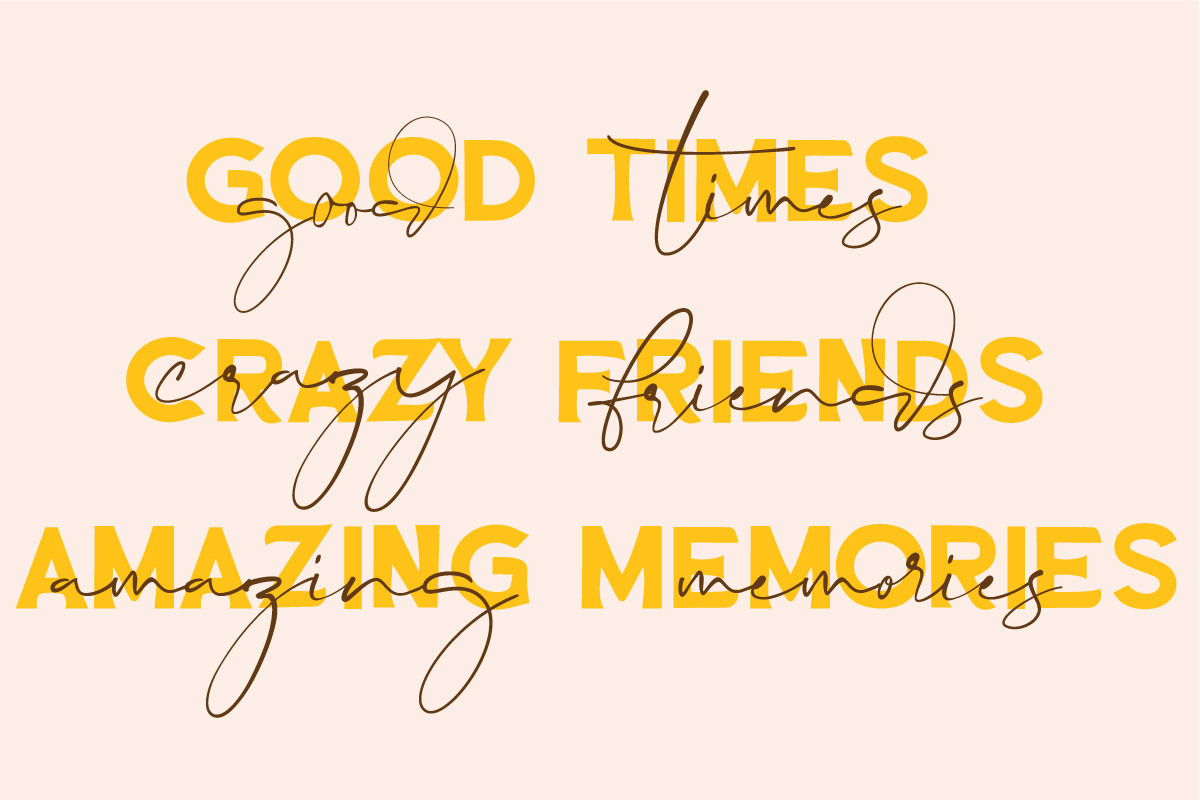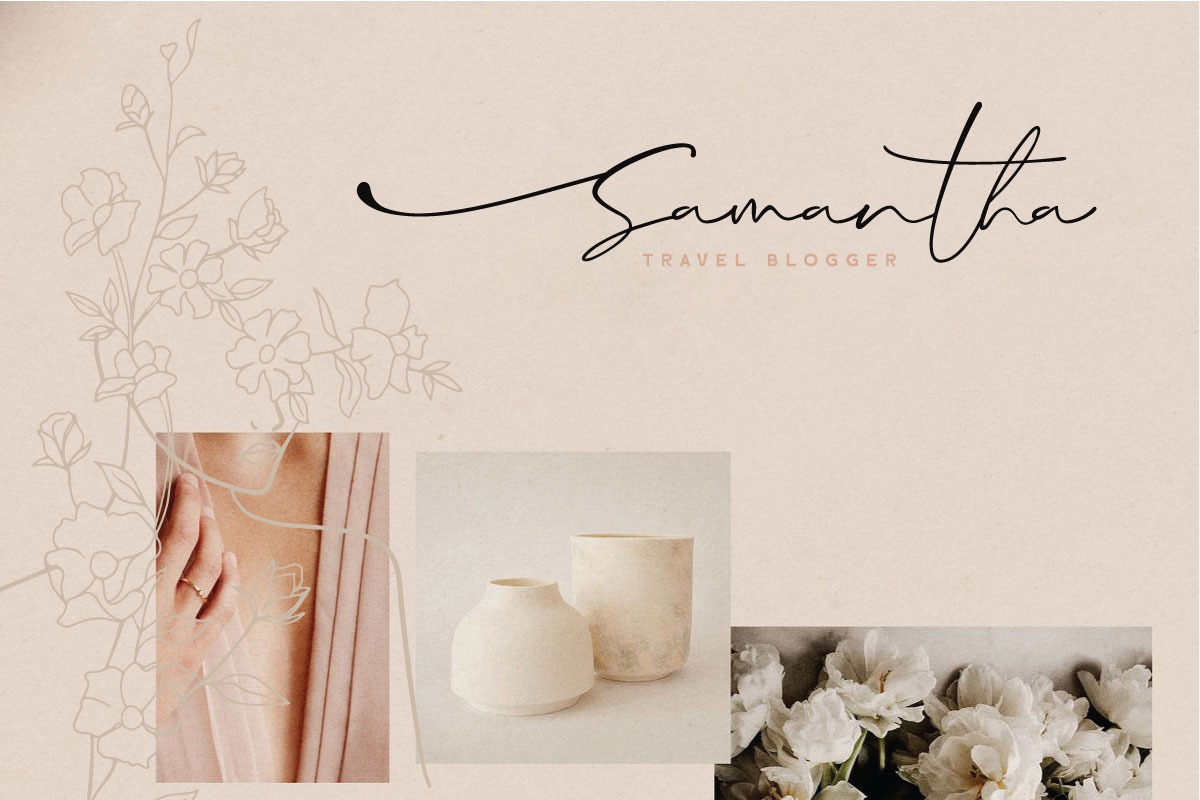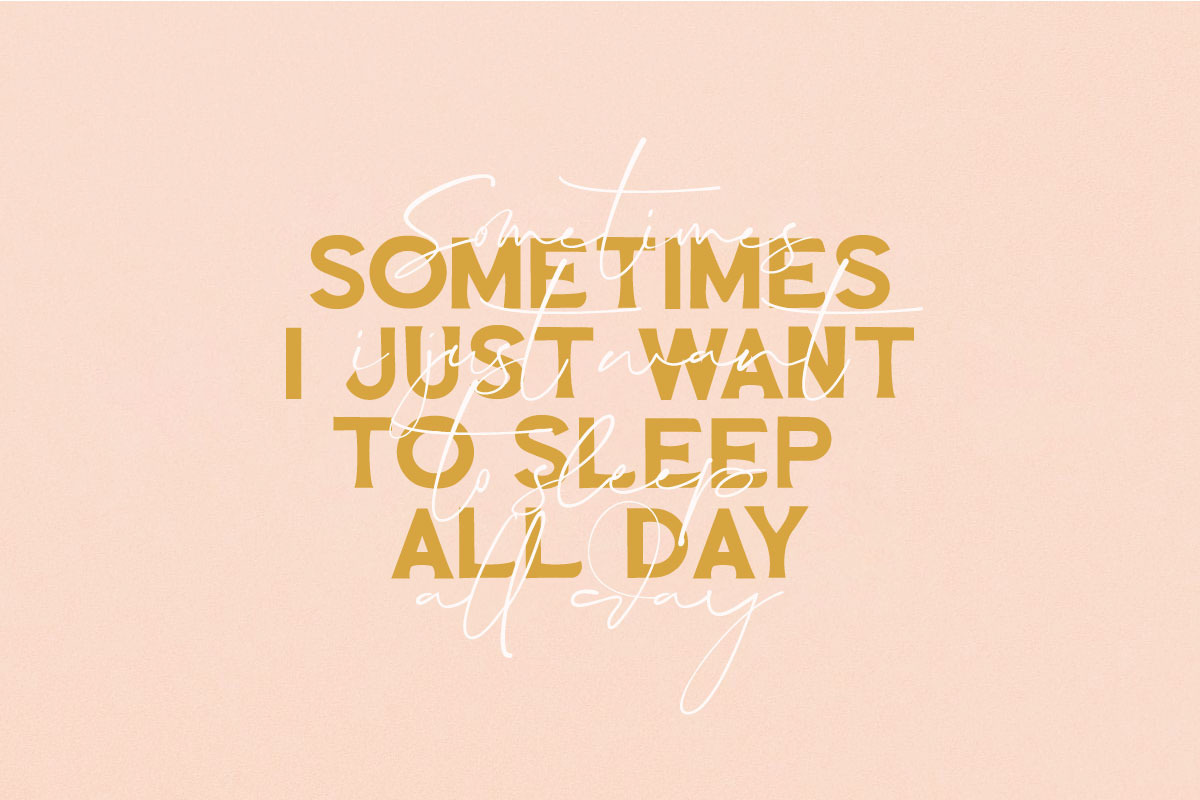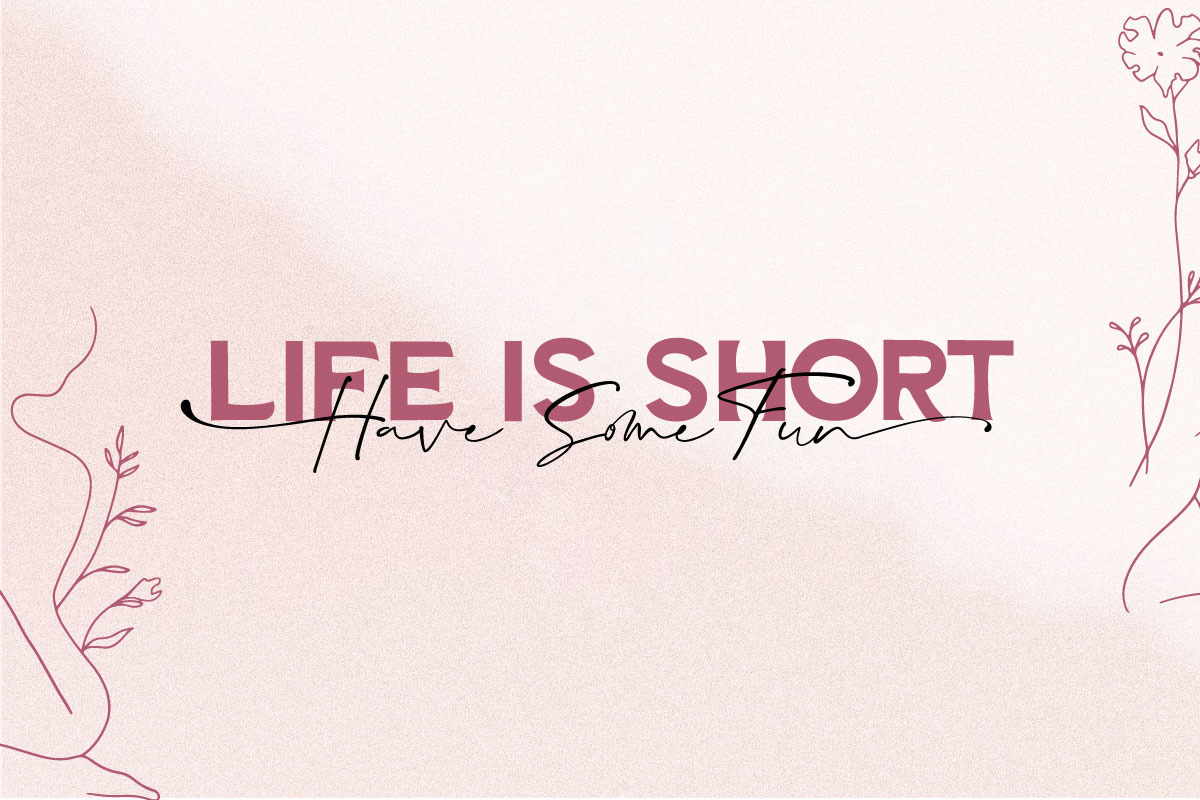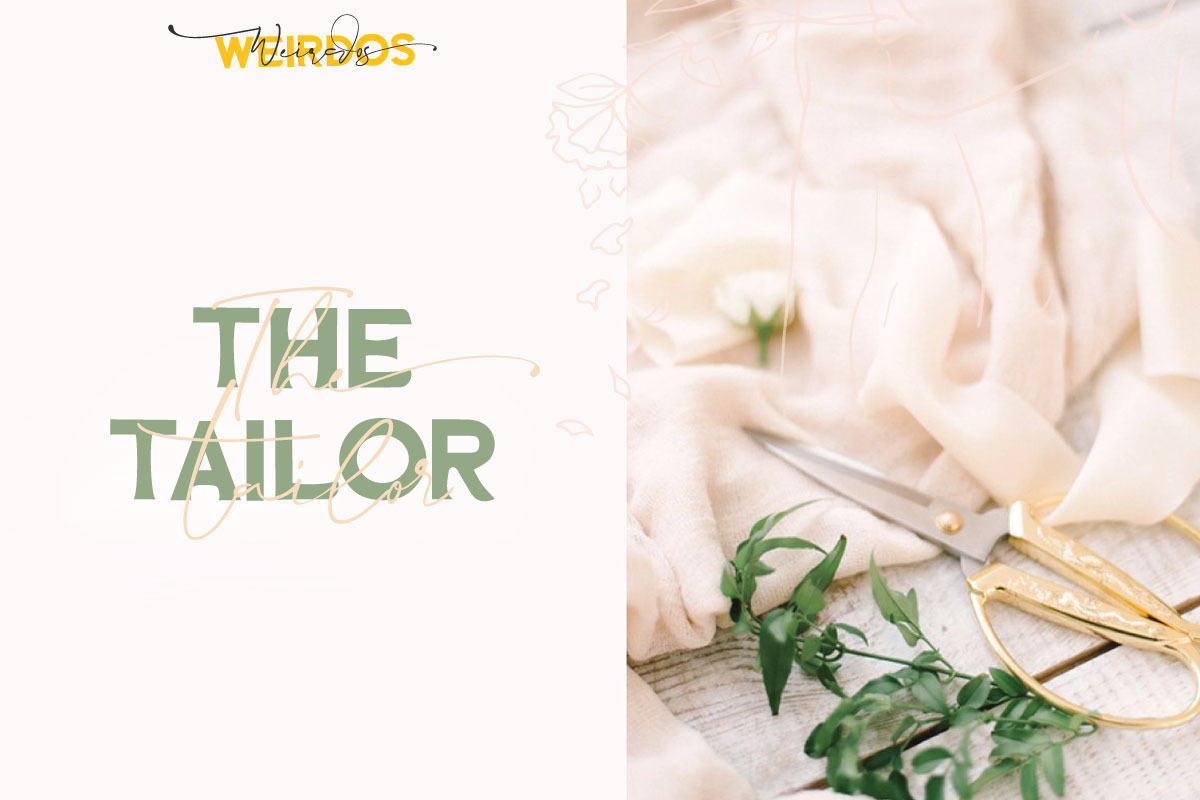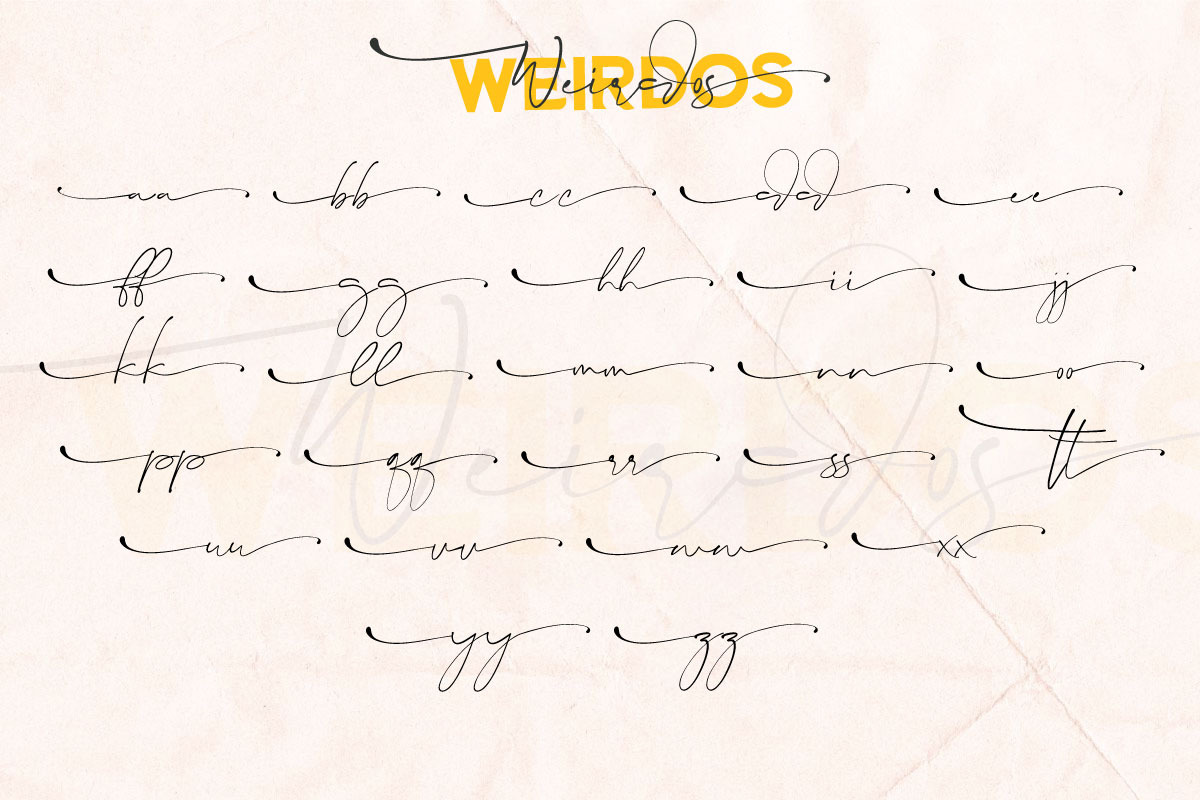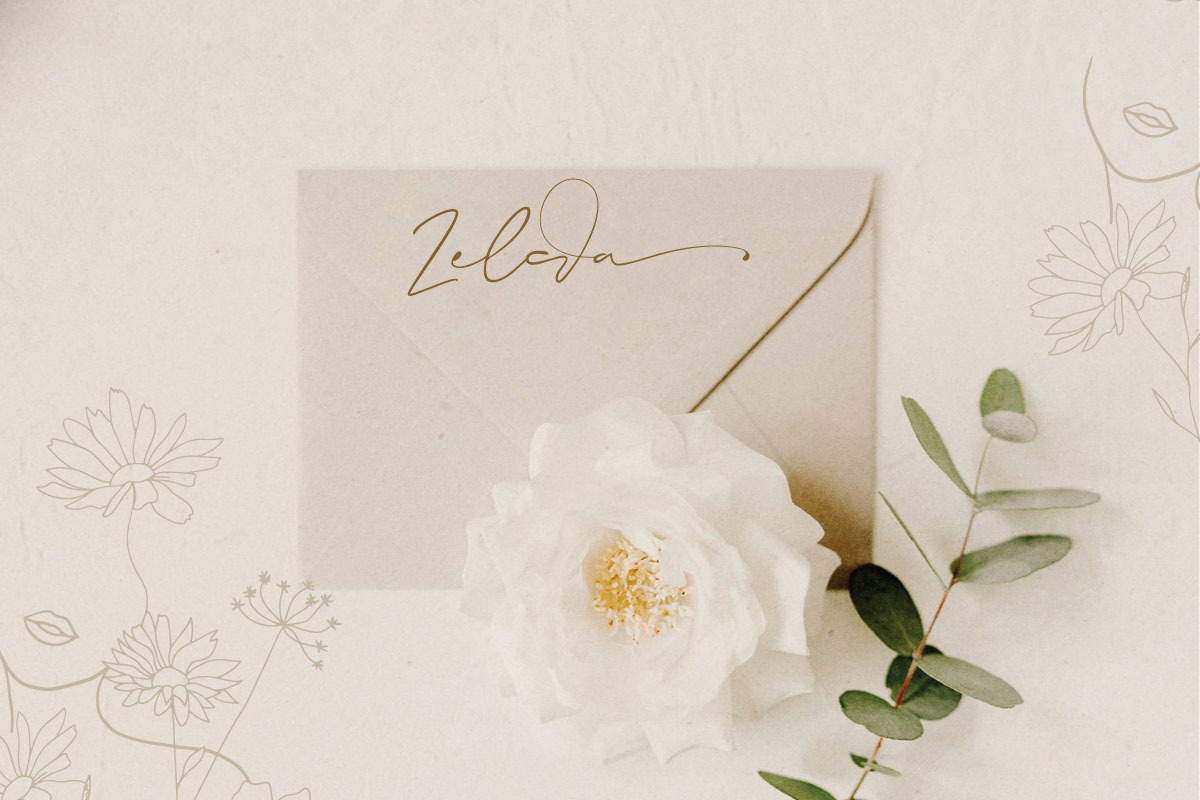
Weirdos is a combination of two fonts serif and script to become a beautiful font. Perfect for your project like branding project, logo, wedding and headline. I added some handmade drawing for you to pair with this font. Please check the image provided :)